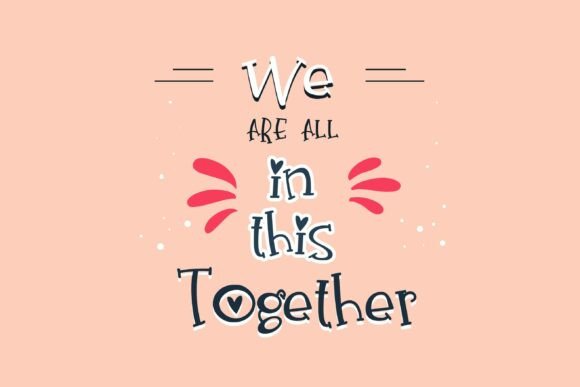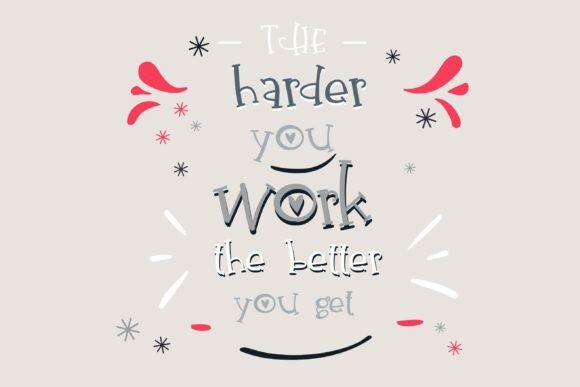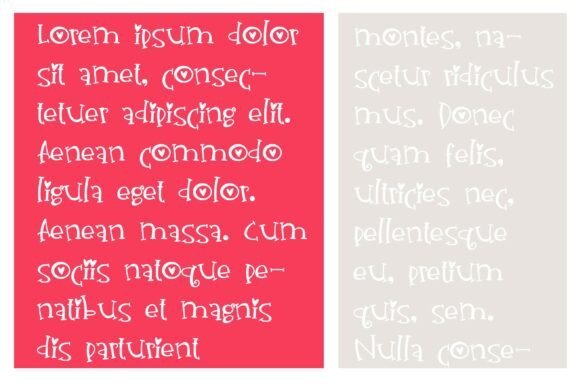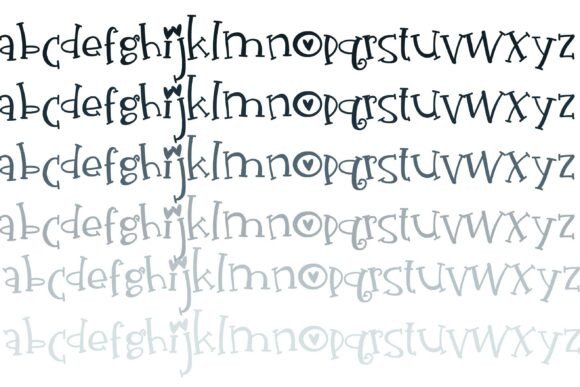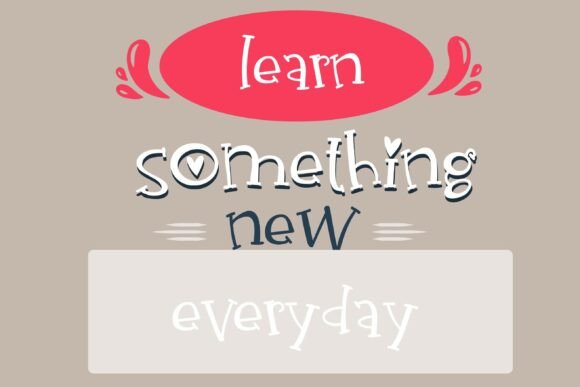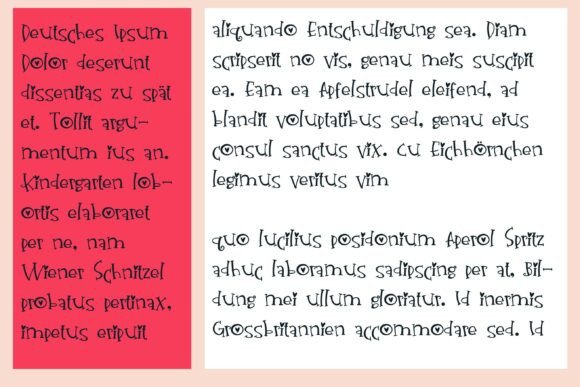
Happy Valentines Font: A Celebration of Handcrafted Joy
As the season of love approaches, designers and crafters are on the lookout for the perfect typography to convey the warmth and sincerity of Valentine’s Day. Look no further than the Happy Valentines font, a delightful typeface that embodies the whimsical side of love and affection. This crafty love font is designed to bring a sense of organic movement and playfulness to your designs, making it an ideal choice for creators who want to add a personal touch to their work.
The Charm of Hand-Drawn Typography
Happy Valentines font is defined by its delightfully irregular, hand-drawn strokes and a bouncy baseline that gives every sentence a sense of movement and energy. The font’s handcrafted nature is evident in its subtle imperfections and quirks, which set it apart from more rigid digital typefaces. This unique character makes Happy Valentines perfect for designers who want to create custom apparel, nursery wall art, or vibrant classroom decorations that feel truly special.
Subtle Heart Integrations
The true charm of the Happy Valentines font lies in its subtle heart integrations. Small, hand-sketched hearts serve as playful accents, replacing tittle dots and punctuating the ends of graceful swashes. These tiny details add a touch of whimsy and romance to any design, making Happy Valentines the perfect choice for Valentine’s Day projects. Whether you’re creating custom cards, gift tags, or social media graphics, this font is sure to bring a smile to your audience’s faces.
A Font for Creators
Happy Valentines font is designed for creators who want their work to feel personal, approachable, and deeply sincere. In an era of digital perfection, this font offers a refreshing alternative – a typeface that feels truly human. By embracing the imperfections and quirks of hand-drawn typography, Happy Valentines allows designers to create work that is authentic, relatable, and engaging.
Versatility for DIY and Small Business Communities
The Happy Valentines typeface is incredibly versatile, making it a “must-have” for the DIY and small business communities. Its playful, handcrafted nature makes it perfect for a wide range of applications, from custom apparel and nursery wall art to vibrant classroom decorations and social media graphics. Whether you’re a designer, crafter, or small business owner, Happy Valentines font is an essential addition to your typography toolkit.
So, what can you create with Happy Valentines font? The possibilities are endless! Here are a few ideas to get you started:
- Custom apparel: Design unique t-shirts, hoodies, and tote bags for Valentine’s Day or any occasion.
- Nursery wall art: Create adorable wall decals, posters, and prints for baby’s room.
- Vibrant classroom decorations: Add a touch of personality to your classroom with Happy Valentines font.
- Social media graphics: Create engaging social media posts, stories, and graphics that stand out.
- Custom cards and gift tags: Design personalized cards and gift tags for any occasion.
In conclusion, Happy Valentines font is a delightful typeface that embodies the whimsical side of love and affection. Its handcrafted nature, subtle heart integrations, and playful character make it perfect for designers and crafters who want to add a personal touch to their work. Whether you’re creating custom apparel, nursery wall art, or vibrant classroom decorations, Happy Valentines font is an essential addition to your typography toolkit. So, why settle for rigid digital type when you can have a font that feels truly human? Embrace the charm of Happy Valentines font and make your designs shine this Valentine’s Day and beyond!